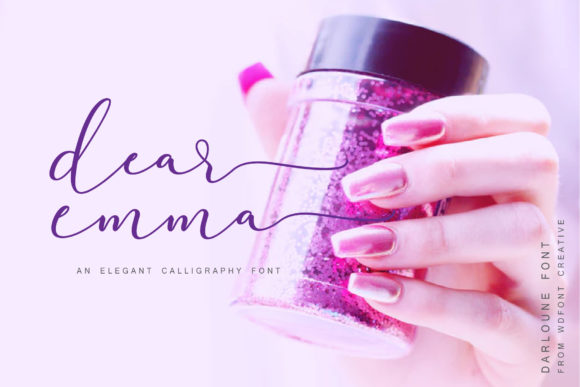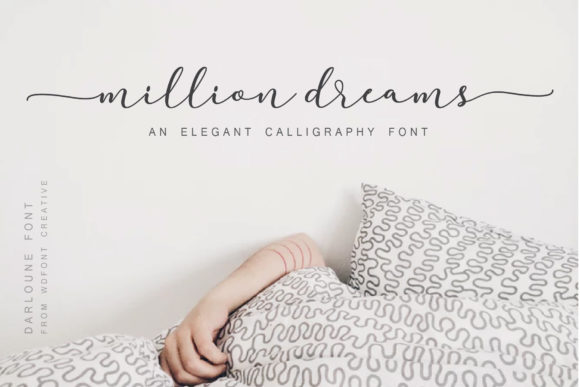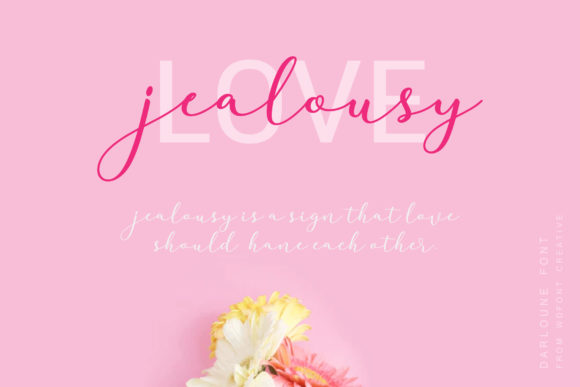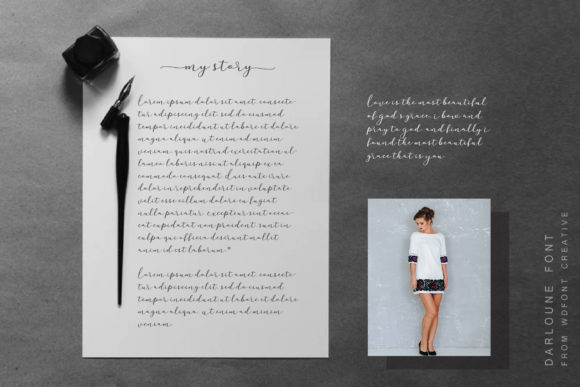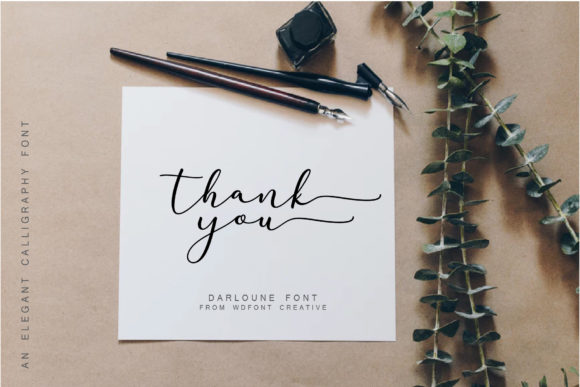
Darloune Font
About Darloune Font
Darloune is a light and fresh handwritten font that will inspire any design project with its incredibly romantic feel.